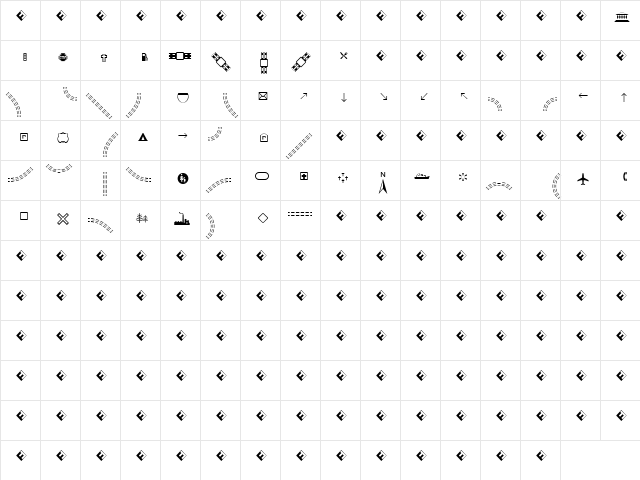
Routes A Regular Free Font
Routes A Regular
Copyright: 2001 Hans Reichel, published by FontShop International for the FontFont library.
Version: Version 004.301
Foundry: Hans Reichel, published by FontShop International for the FontFont library
Design Context for Routes A
Routes A is a composed and adaptable typeface that performs quietly and consistently across a wide range of design contexts.
Who designed the Routes A Regular font?
This font was published by Hans Reichel, published by FontShop International for the FontFont library. Check the technical specs section for copyright and designer details.